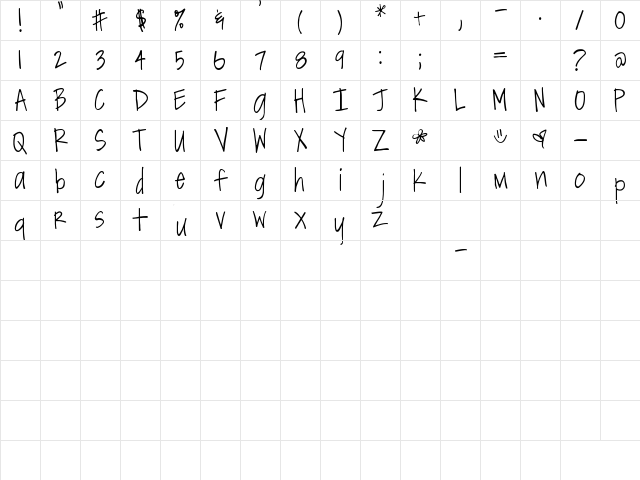
SBC Courtneys Journal Regular
Design Context for SBC Courtneys Journal Typeface
SBC Courtneys Journal is a composed and adaptable typeface that performs quietly and consistently across a wide range of design contexts.